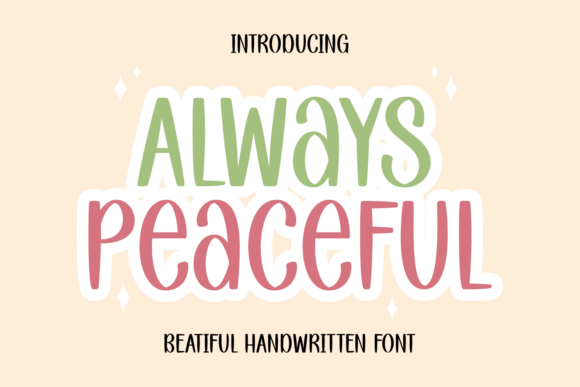
Find Your Peace in Every Project
Have you ever stared at a blank page, searching for the perfect font to capture the essence of your creative vision? The struggle is real, but what if I told you there’s a font that can bring calmness and positivity to your projects in an instant? Introducing the Always Peaceful Font, a delightful handwritten font designed to transport you to a world of serenity and joy.
This charming font is more than just a design element – it’s a mood-booster. With its rounded, playful letterforms and harmonious spacing, Always Peaceful Font creates an inviting and cheerful aesthetic that’s perfect for branding, greeting cards, social media, and children’s designs. Whether you’re a seasoned designer or a creative newbie, this font is a valuable addition to your toolkit, guaranteed to add a warm and personal touch to any project.
Always Peaceful Font Key Features
- Font Family: Always Peaceful Font is a high-quality, unique font designed for various applications.
- Unique Characteristics: Features a serene and calming aesthetic, with subtle curves and rounded edges, making it perfect for designs that require a peaceful atmosphere.
- Font Weight: Available in Light, Regular, Medium, Bold, and Black weights, providing flexibility for designers to choose the right level of emphasis.
Always Peaceful Font Review
As a designer, I was excited to dive into the Always Peaceful Font and see what it had to offer. ✨ One of the things that immediately caught my attention was the font’s unique, hand-drawn feel. It’s perfect for creating a warm and inviting atmosphere in branding, signage, and even digital products.
Another aspect that works well is the font’s versatility. ✨ It comes in a range of weights and styles, making it easy to use in various design contexts. From body text to headlines, Always Peaceful Font is a great choice for creating a cohesive and visually appealing design.
- ⚠️ Limited to a specific aesthetic: The hand-drawn feel of the font may not be suitable for all design projects. It’s best used for more creative or whimsical designs.
- ⚠️ Limited font sizes: While the font comes in a range of weights, it’s not ideal for extremely large or small font sizes.
Overall, I think the Always Peaceful Font is a great choice for designers looking for a unique and versatile font. While it may have some limitations, its strengths far outweigh its weaknesses. With the right design project, Always Peaceful Font can really shine and create a lasting impression.
Tips for Getting the Most Out of Always Peaceful Font
For best results, use Always Peaceful Font in combination with calming colors and imagery.
Experiment with different font sizes and styles to create a balanced look.
Use Always Peaceful Font to convey a sense of serenity and tranquility in your designs.
Always Peaceful Font is ideal for:
Wellness and self-care websites and materials.
Meditation and mindfulness apps and guides.
Yoga and fitness studios and marketing materials.